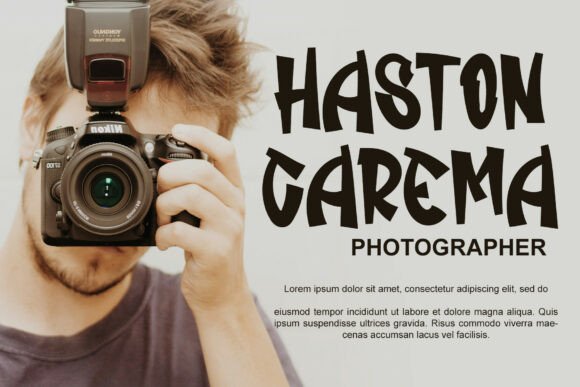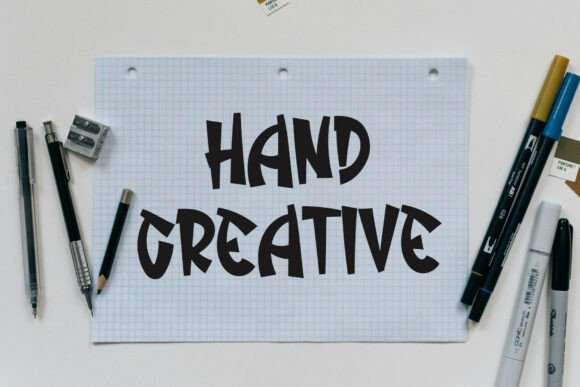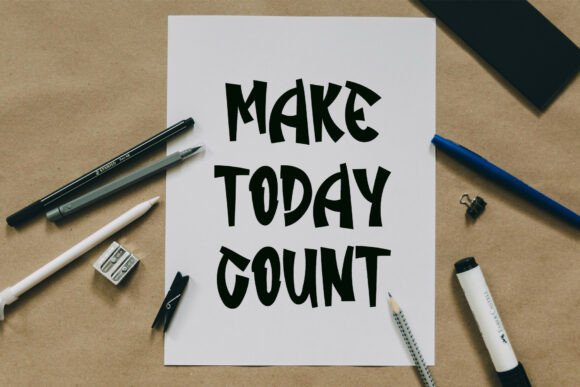
Introduction to Easter Widely Font
Easter Widely is a beautifully crafted display handwriting font that blends elegance with a modern, artistic touch.
👤 Author YanStudio
Its flowing strokes and well-balanced curves create a sophisticated yet approachable feel, making it the perfect font choice for those who want to add a touch of class and personality to their designs .
Key Features of Easter Widely Font
Why Choose Easter Widely Font?
Easter Widely Font offers exceptional quality and versatility, making it a valuable addition to your design toolkit. Whether you’re creating for personal projects or commercial use, Easter Widely Font delivers professional results.